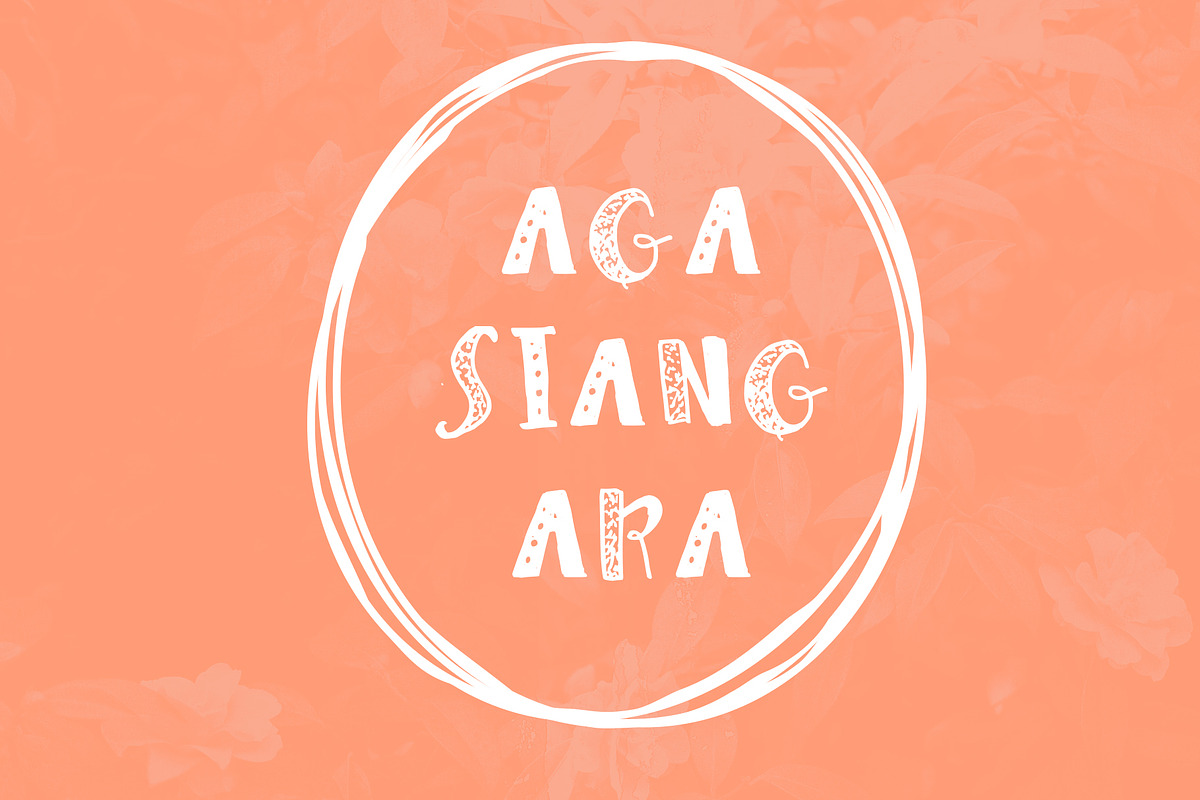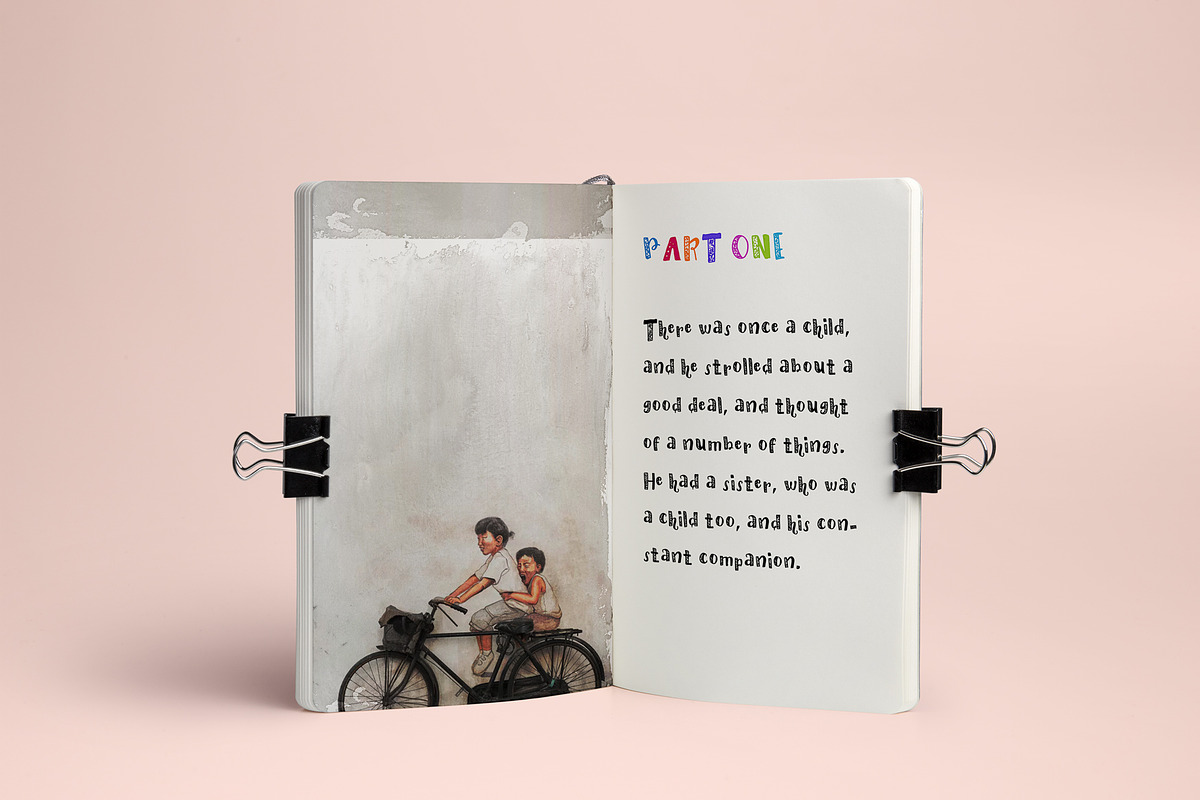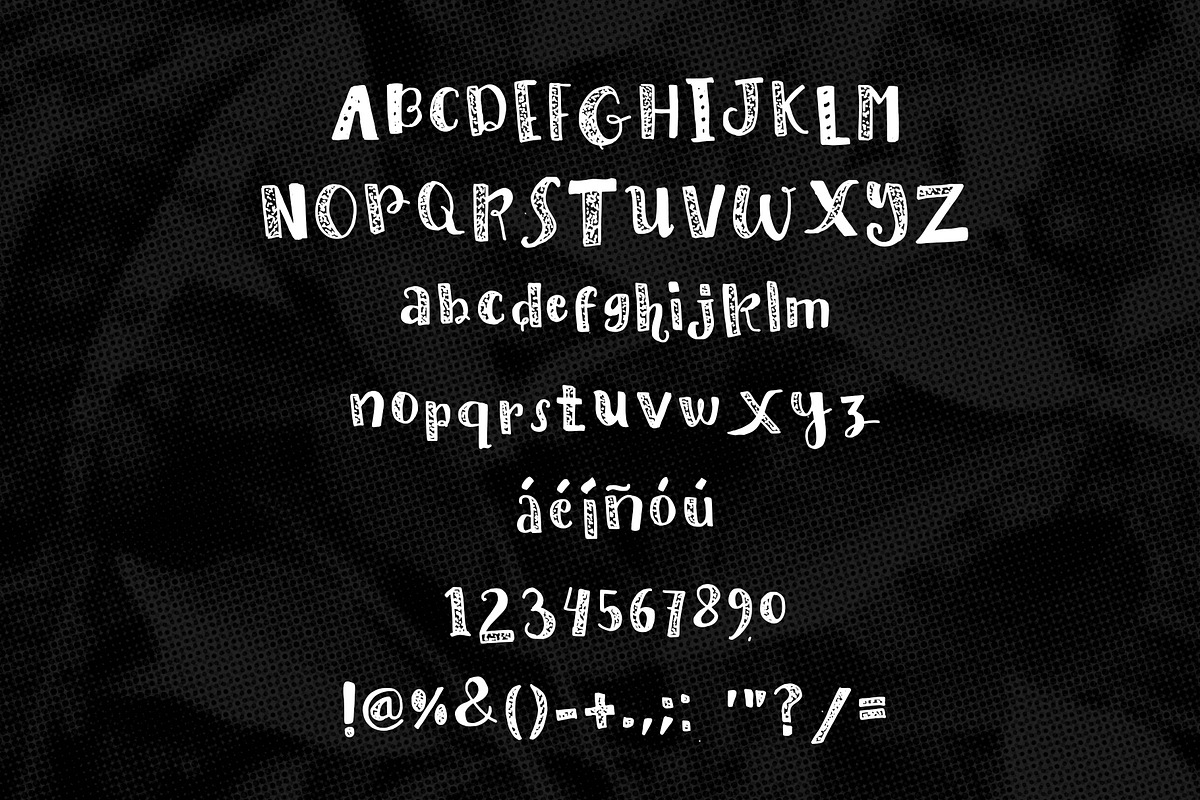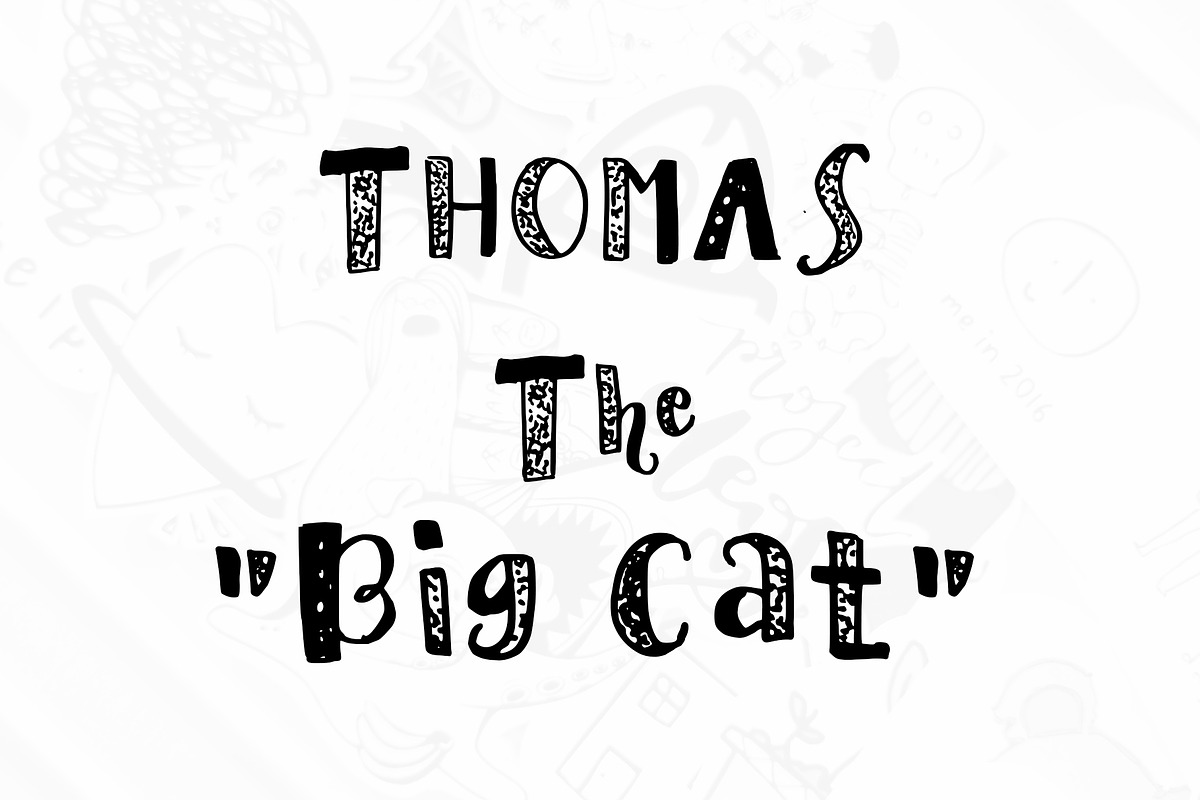
Agasiangara Font Kids Book & Fun
Agasiangara Font is Display font type that was designed to used for children's story books and other fun things.
Agasiangara Font Kids Book & Fun by NadaNora fits naturally into Branding, posters, packaging, typography.